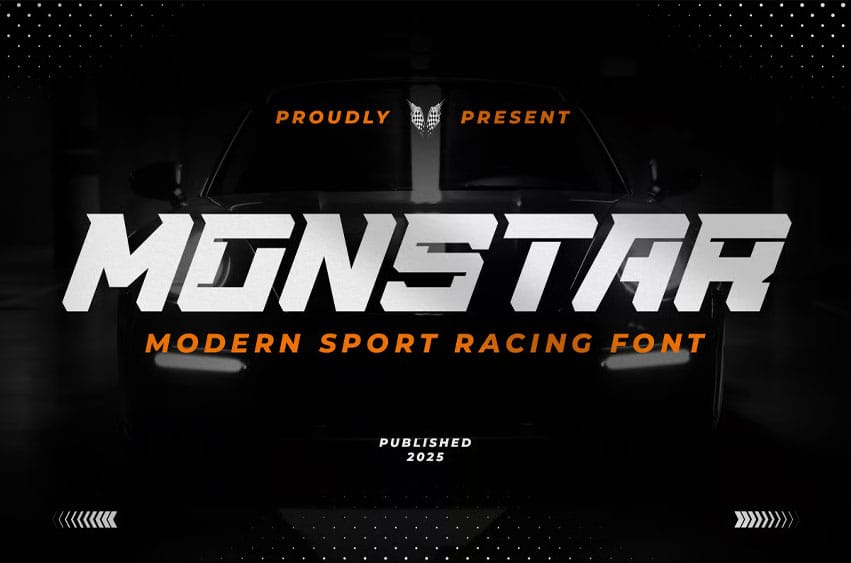
Monstar Racing Font is a bold and aggressive display font designed to capture the energy of racing, sports, and high-octane action. With sharp angles, strong lines, and a commanding presence, this all-caps font embodies motion and intensity. Whether roaring engines or fierce competition, MONSTAR delivers the visual power to match.
Built for impact, MONSTAR excels in branding for racing events, sports competitions, action-packed films, and extreme lifestyle campaigns. Its rugged style is tailor-made for logotypes, automotive posters, and sports-themed content that demands attention. The font channels the adrenaline and ambition of high-speed pursuits and active culture.
MONSTAR offers a wide range of alternate characters and dynamic ligatures, allowing for creative flexibility and customization. Its versatility makes it ideal for jerseys, decals, flags, and bold packaging. Every curve and edge is crafted to maintain a sense of velocity and strength, whether in motion or at rest.
Its futuristic aesthetic also lends itself well to techno, gaming, and modern digital themes. MONSTAR fits seamlessly across both print and digital media, elevating visuals with a punch of grit and dominance. It’s more than a font—it’s a statement of drive and performance.
Make your design roar with MONSTAR—gear up and get noticed.